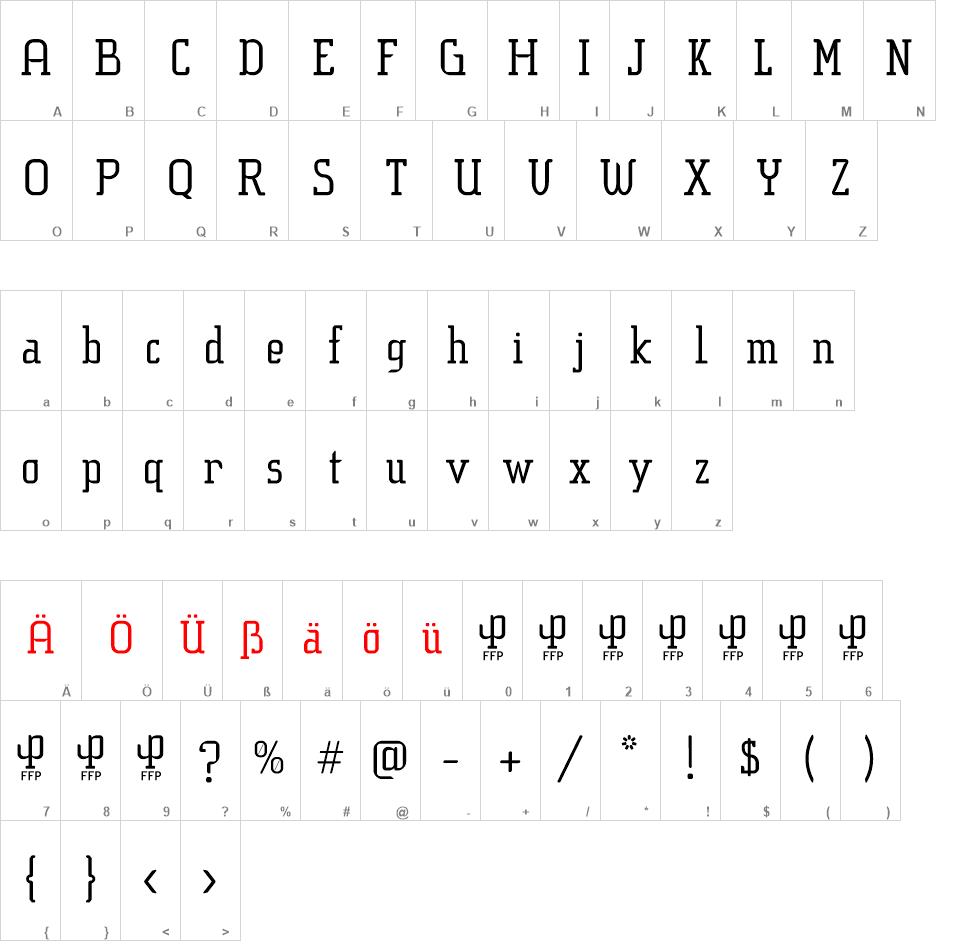
Sucesión Slab
Sucesión Slab font
Sucesión Slab
This font Slab Serif corresponds to the series of typefaces built proportions derived from mathematical sequences. An experiment in the sense of proportion, to define all I have relied mainly on the Fibonacci sequence, I have also used some numbers of the sequence of Lucas and crevices at the nodes of the horns and some punctuation've used Kepler triangle.
Esta fuente Slab Serif corresponde a la serie de tipografías construidas con proporciones derivadas de secuencias matemáticas. Un experimento en el sentido de las proporciones, para definir todas ellas me he basado principalmente en la secuencia de Fibonacci, también he usado algunos números de la secuencia de Lucas y para las hendiduras en los nudos de las astas y algunos signos de puntuación he usado el triángulo de Kepler.